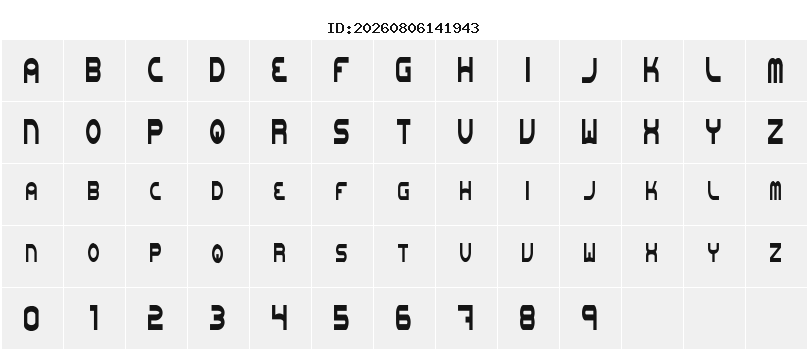
Oneworldonefuture Preview
• Font Name: Oneworldonefuture
• Font Style: Light
• Font ID: Oneworldonefuture-Light
• Full Font Name: Oneworldonefuture Light
• Version: Fontmaker 2.3
• PostScript Name: OneworldonefutureLight
• Character Count: 89
• Copyright: designed by Dieter Schumacher © 1998
About Oneworldonefuture.ttf
Oneworldonefuture.ttf is a modern, elegant sans-serif font designed for ultimate readability and visual harmony. Perfect for branding, headlines, web design, and print materials.